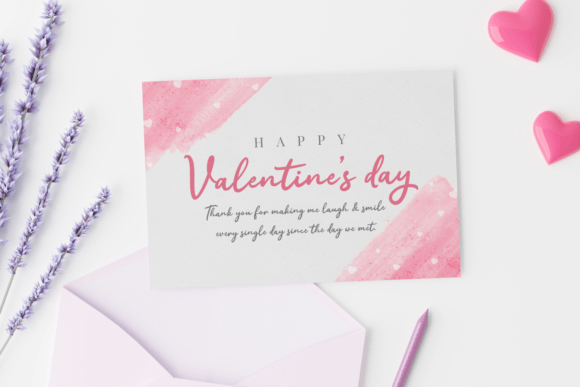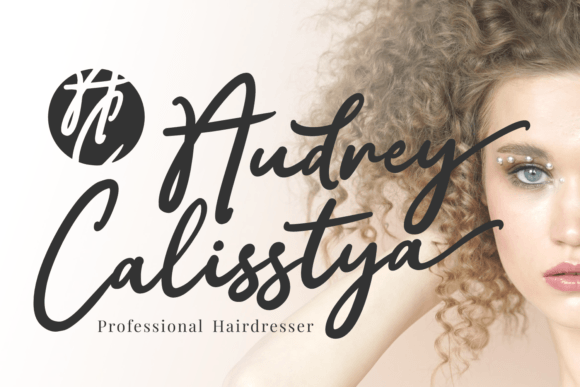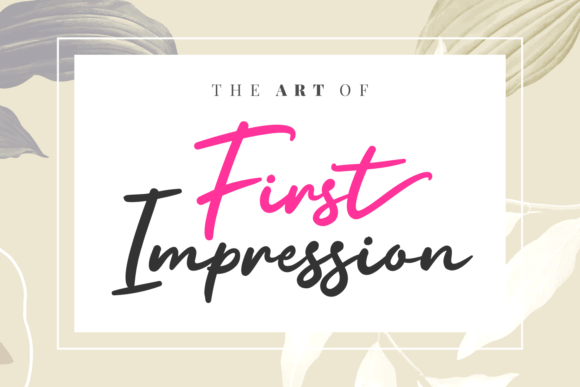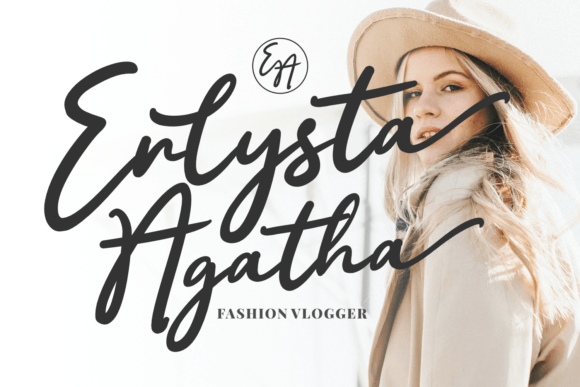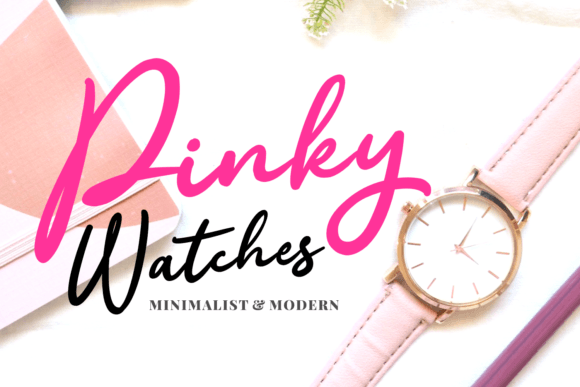
Introducing Beauty United Font: A Perfect Choice for Display Projects
In the world of typography, a font can make or break a design. With thousands of options available, it can be overwhelming to choose the right one. However, if you’re looking for a font that exudes personality and versatility, look no further than Beauty United Font. This stunning font is designed to make a statement, making it perfect for display projects, branding, logos, and more.
A Font with a Strong Personality
Beauty United Font boasts a strong personality that sets it apart from other fonts. Its unique design makes it a perfect choice for projects that require a bold and eye-catching look. Whether you’re working on a branding campaign, creating a logo, or designing a food package, Beauty United Font is sure to make a lasting impression.
Perfectly Suited for a Wide Range of Applications
One of the best things about Beauty United Font is its versatility. It’s perfectly suited for a wide range of applications, including:
- Branding and logos: Create a lasting impression with a bold and eye-catching logo that showcases your brand’s personality.
- Candy and food packages: Add a touch of elegance and sophistication to your food packaging with Beauty United Font.
- Display projects: Make a statement with a font that’s designed to grab attention.
- Advertising: Use Beauty United Font to create eye-catching ads that stand out from the crowd.
Beauty United Font is PUA (Private Use Area) encoded, which means you can access all of the amazing glyphs and ligatures with ease. This encoding allows you to unlock the full potential of the font, giving you access to a wide range of characters and symbols that can enhance your design.
PUA encoding is a way of encoding fonts that allows designers to access a wide range of characters and symbols that are not available in standard fonts. This encoding is especially useful for fonts that have a large number of glyphs and ligatures, like Beauty United Font.
Benefits of Using Beauty United Font
So, why choose Beauty United Font for your next project? Here are just a few benefits of using this amazing font:
- Unique design: Beauty United Font has a unique design that sets it apart from other fonts.
- Versatility: This font is perfectly suited for a wide range of applications, from branding and logos to display projects and advertising.
- Easy to use: With PUA encoding, you can access all of the amazing glyphs and ligatures with ease.
- High-quality: Beauty United Font is a high-quality font that’s designed to deliver exceptional results.
Tips for Using Beauty United Font
Here are a few tips for using Beauty United Font in your designs:
- Experiment with different sizes: Beauty United Font looks great in a variety of sizes, from small to large.
- Play with colors: This font looks great in a range of colors, from bold and bright to subtle and pastel.
- Use it sparingly: While Beauty United Font is perfect for display projects, it’s best to use it sparingly to avoid overwhelming the reader.
In conclusion, Beauty United Font is a stunning font that’s perfect for designers and crafters looking for a bold and eye-catching font. With its strong personality, versatility, and PUA encoding, this font is sure to deliver exceptional results. Whether you’re working on a branding campaign, creating a logo, or designing a food package, Beauty United Font is a great choice.